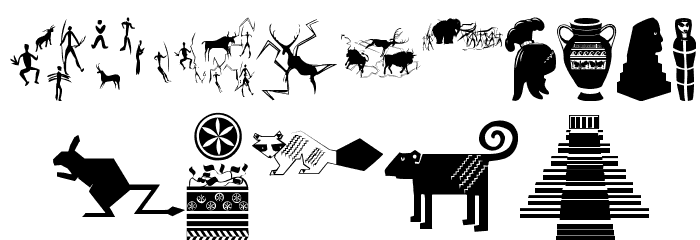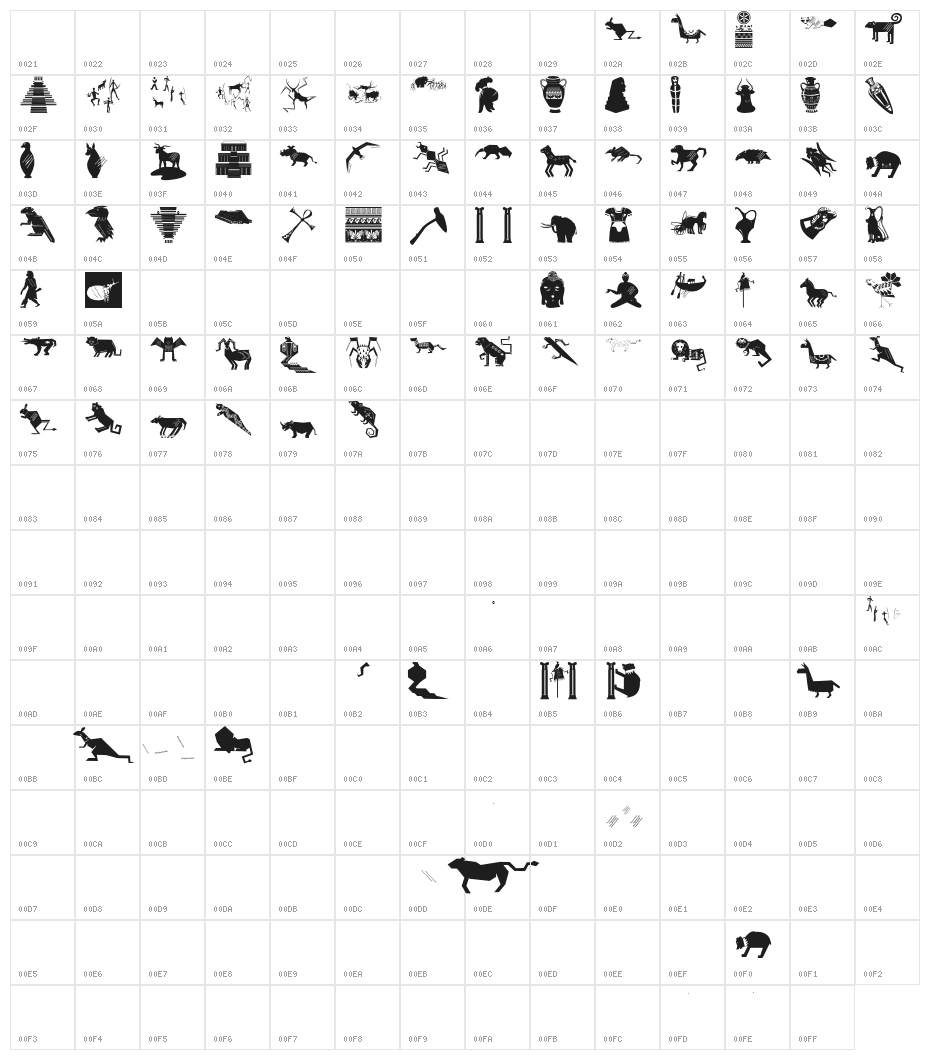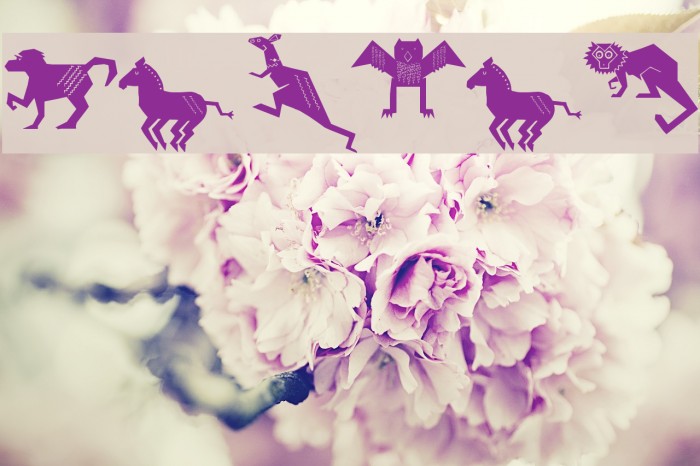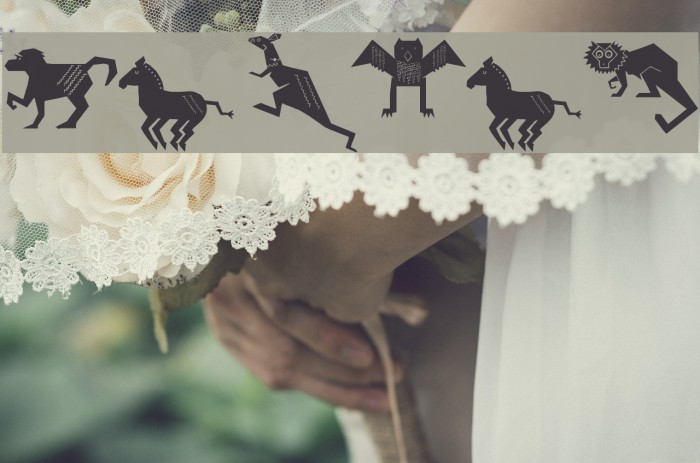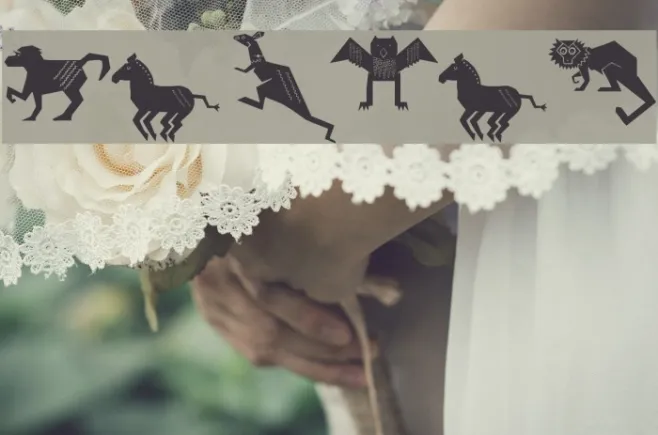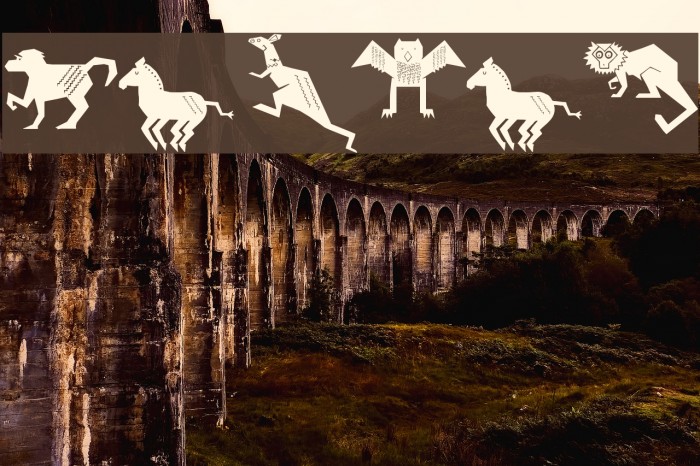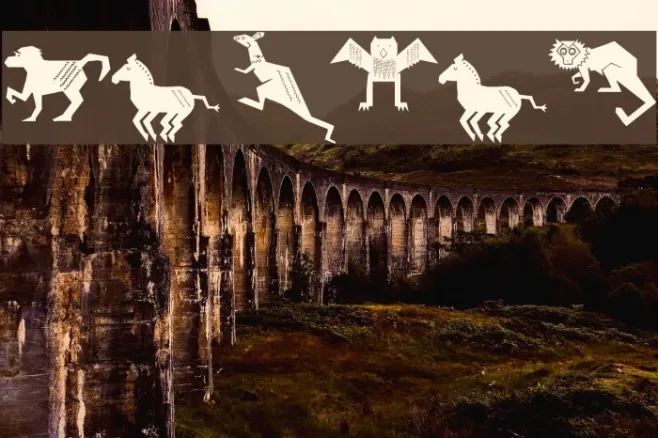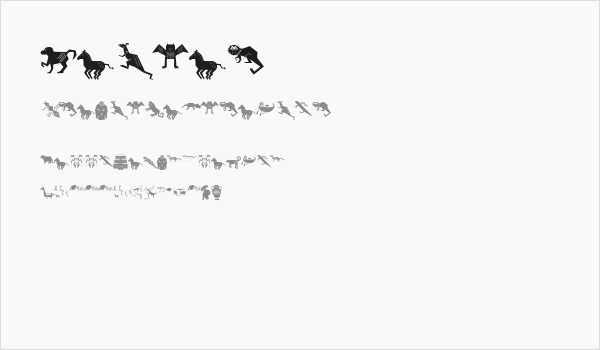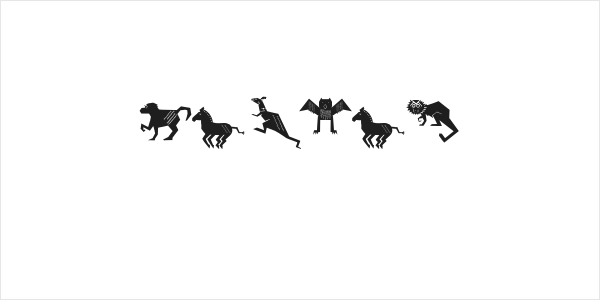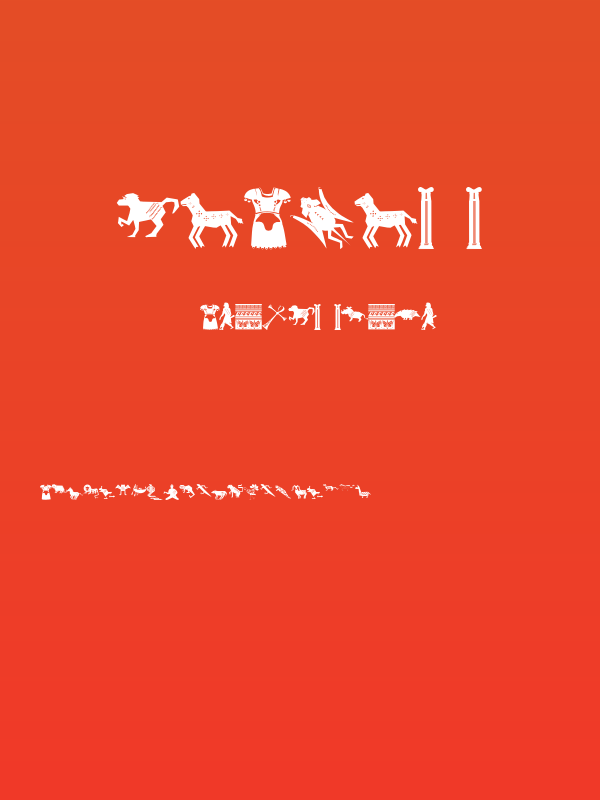
Getier Font
Getier Description
A decorative display font composed of pictograms inspired by ancient petroglyphs, cave paintings, and archaeological motifs, featuring animals, humans, artifacts, and geometric shapes with bold, solid black silhouettes and intricate internal patterns.
| Overall Style | Decorative, Ancient, Ethnic |
| Use Case | Logos, Posters, Educational Displays, Themed Graphics |
| Proposed Projects | Educational materials, museum signage, history-themed posters, children's books, cultural event branding, creative art projects. |